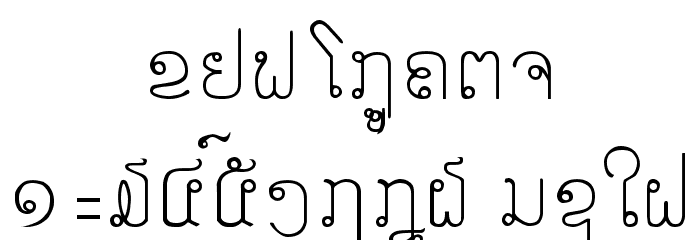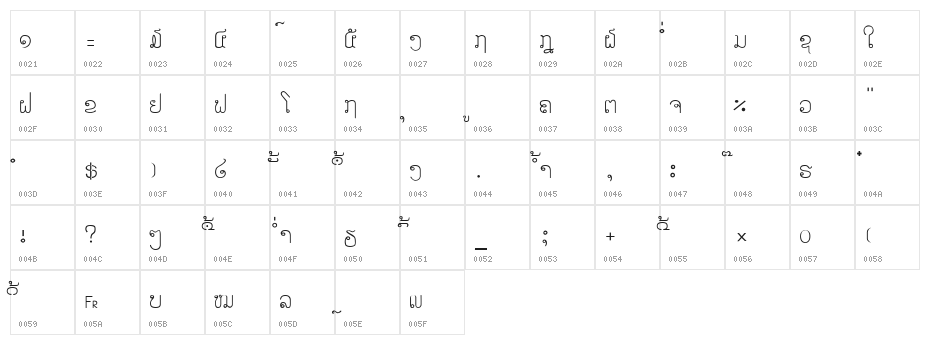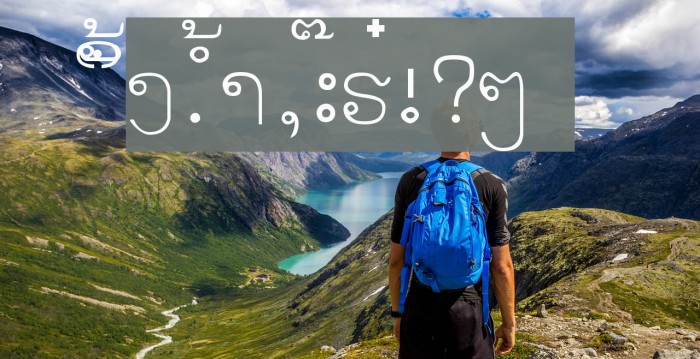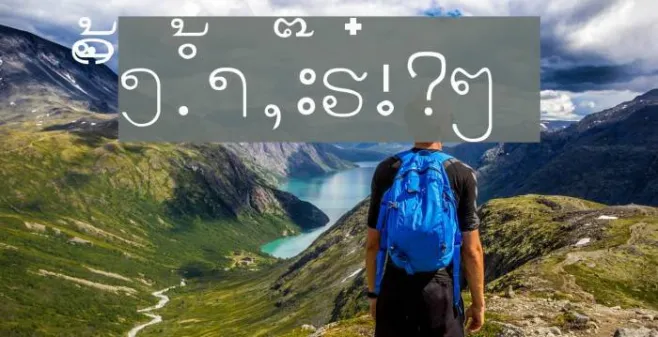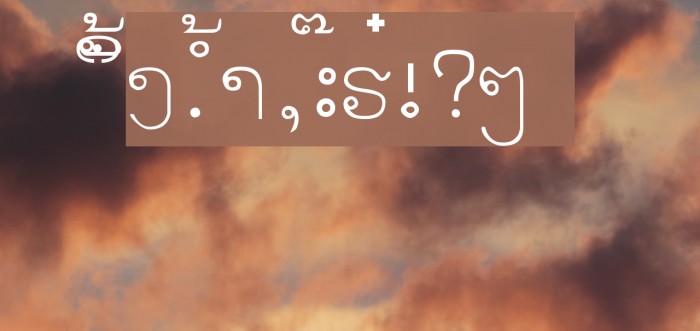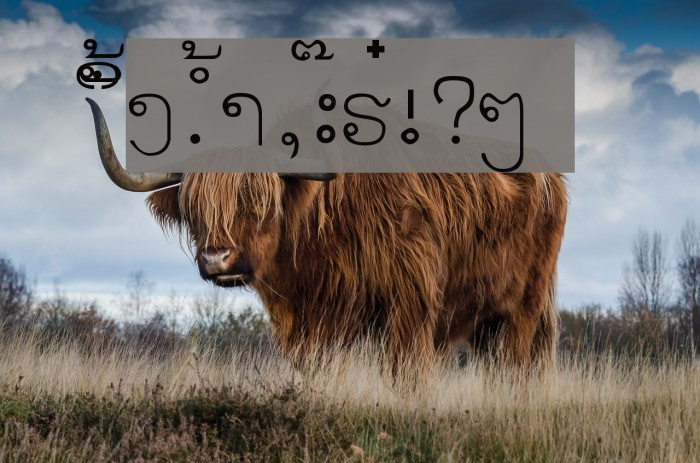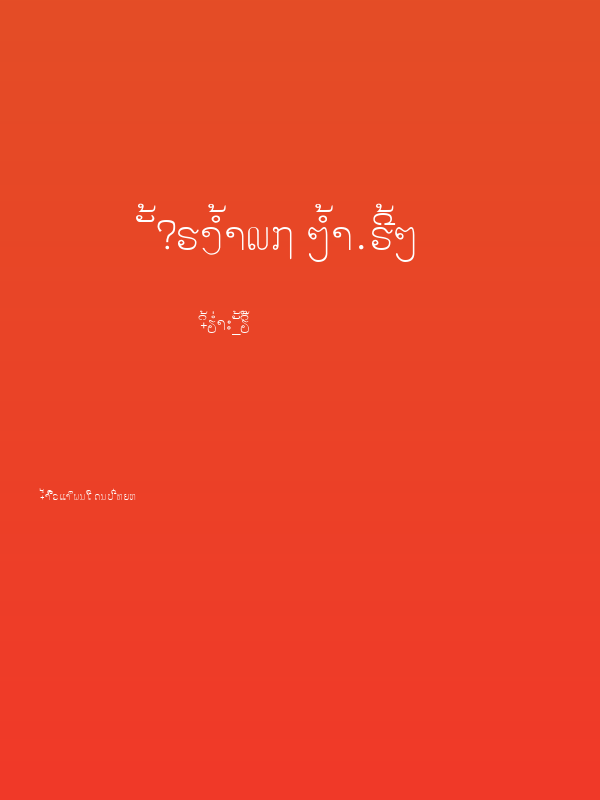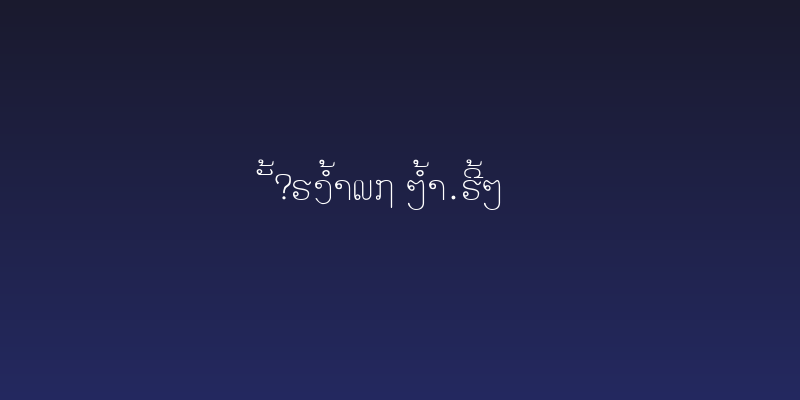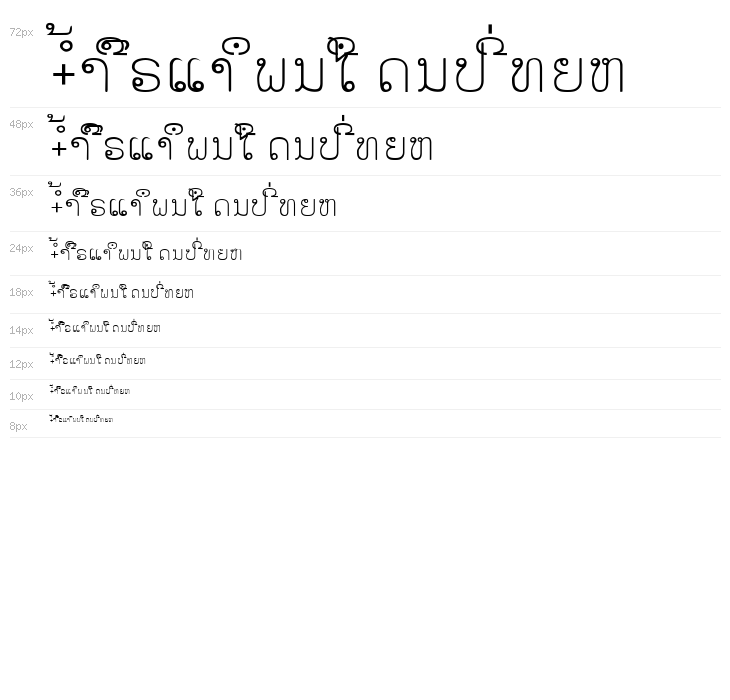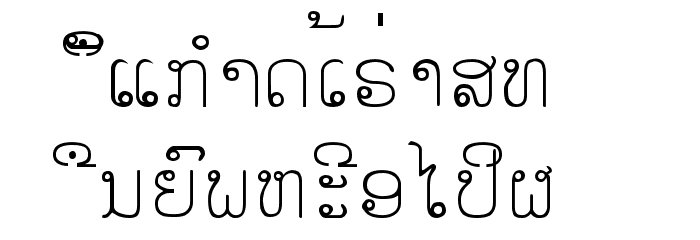
alice_4 Medium Font
alice_4 Medium Description
This font features a unique and intricate design that incorporates elements of traditional script with a modern twist. The characters are elegantly curved, with a consistent stroke width that gives it a harmonious appearance. The font includes a variety of special characters and numerals, each maintaining the same stylistic approach. The overall look is both sophisticated and approachable, making it suitable for a range of creative projects. The spacing between characters is balanced, ensuring readability while maintaining its decorative appeal.